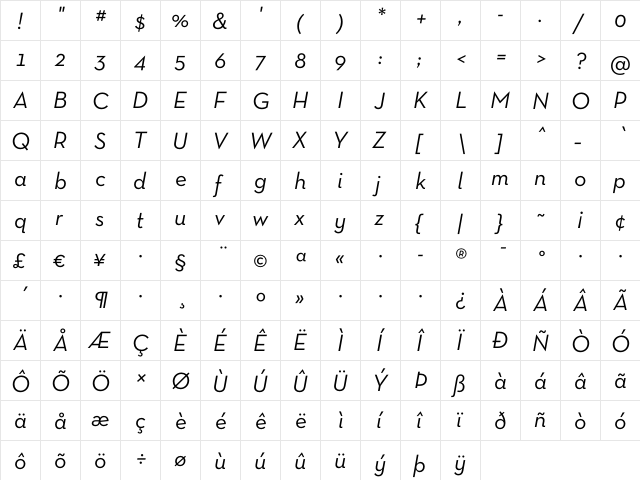
Neutra Text TF Italic
| Designer | Christian Schwartz |
Design Context for Neutra Text TF Typeface
Neutra Text TF takes a measured approach to typography — its balanced proportions and neutral character make it a reliable workhorse for both digital and print work. Its italic angle brings a sense of urgency and motion to the letterforms.
Pro Tip: Try Neutra Text TF for annotation and caption copy alongside an upright companion — the contrast in angle creates a dynamic but ordered typographic system.